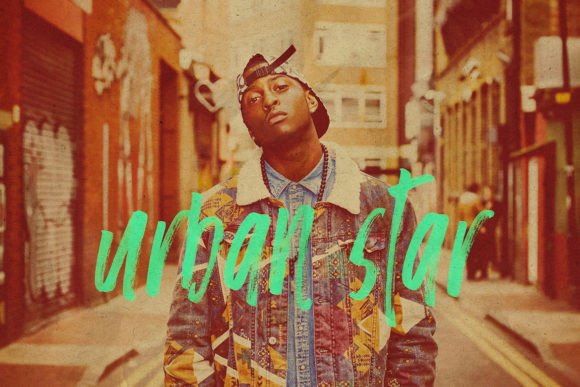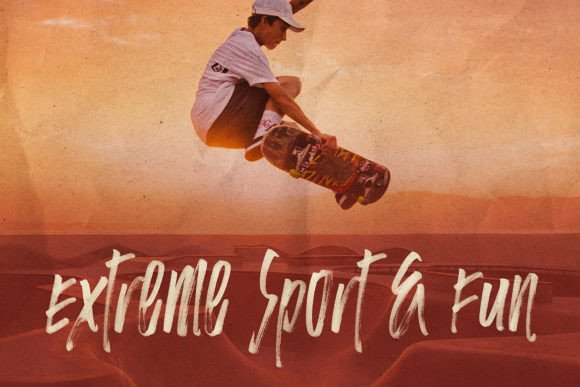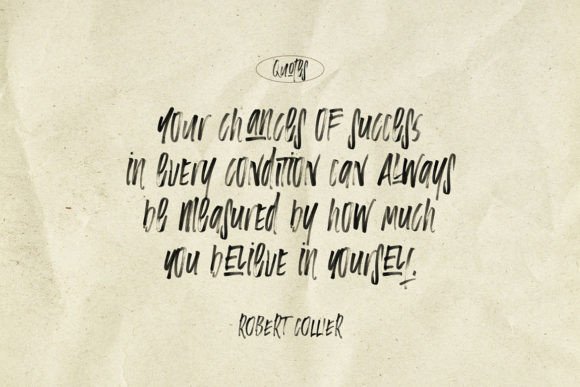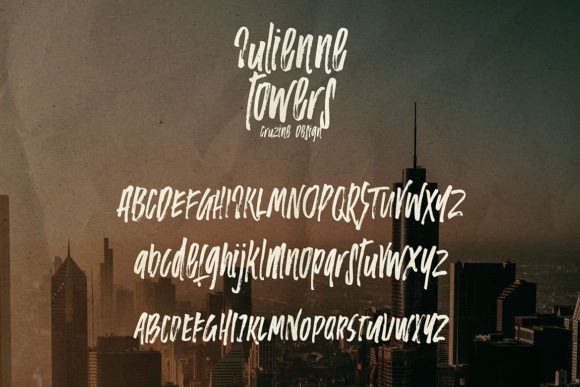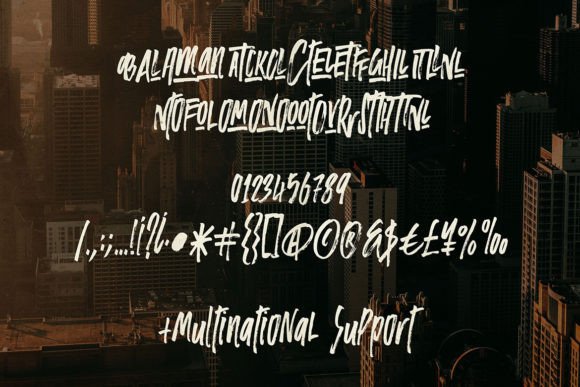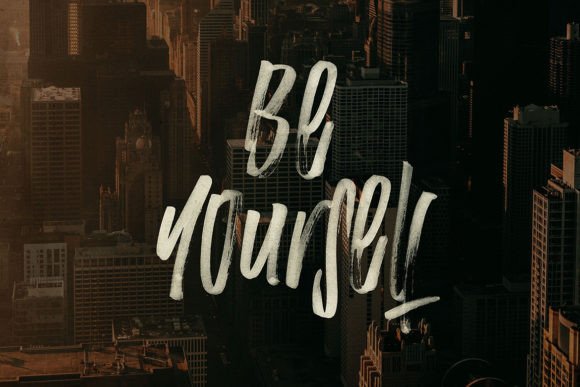
Introduction to Julienne Towers Font
Have you ever found yourself staring at a blank canvas, trying to spark creativity for your next design project? The blank page can be intimidating, but it’s moments like these that the right font can be a game-changer. For designers seeking a bold and energetic aesthetic, the Julienne Towers Font is a valuable addition to any design arsenal.
With its unique character shapes and strong strokes, this font exudes confidence and playfulness, making it perfect for branding, packaging, and editorial designs that require a high-quality, contemporary look. Whether you’re working on a free download or a paid project with a transparent background, the Julienne Towers Font is a versatile design resource that’s sure to elevate your creative project.
Key Features of Julienne Towers Font
- Unique, hand-drawn style with a transparent background, allowing for versatility in design applications.
- Supports various languages and character sets, making it a valuable resource for designers and developers worldwide.
- Perfect for use in logos, branding materials, and other design elements where a creative and eye-catching font is required.
Honest Review: Julienne Towers Font
- High quality design: The Julienne Towers Font is clean, modern, and visually appealing.
- Transparent background: This makes it easy to use as a background or overlay in designs.
- Easy to read: The font is clear and easy to read, even at small sizes.
- Limited character set: The font only includes a basic set of characters, which may not be suitable for complex designs.
- No bold or italic styles: This can make it difficult to add emphasis to certain text elements.
Overall, I’m impressed with the Julienne Towers Font. It’s a great resource for designers who need a high-quality, free font for their creative projects. While it may have some limitations, it’s a great addition to any design toolbox.
Getting the Most Out of Julienne Towers Font
For a high-quality design, use the Julienne Towers Font in combination with a transparent background to create a visually appealing effect. This font is ideal for creative projects that require a unique and stylish touch.
The Julienne Towers Font is commonly used in design projects such as logos, business cards, and social media graphics. Its unique and stylish design makes it a popular choice for creative professionals.